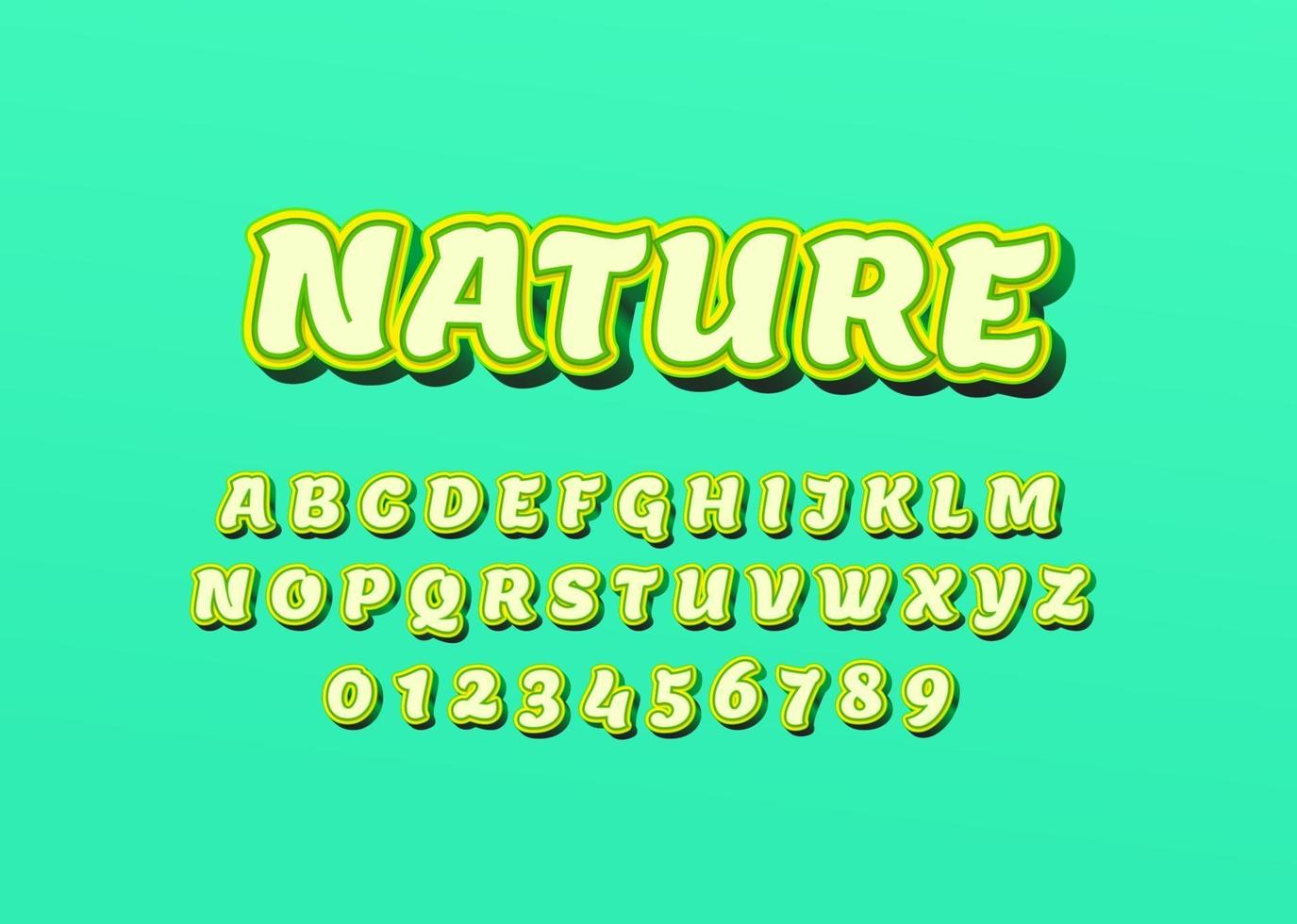
Fresh and nature style Custom font alphabet letters and numbers . vector
Fresh and nature style Custom font alphabet letters and numbers . Free Vector